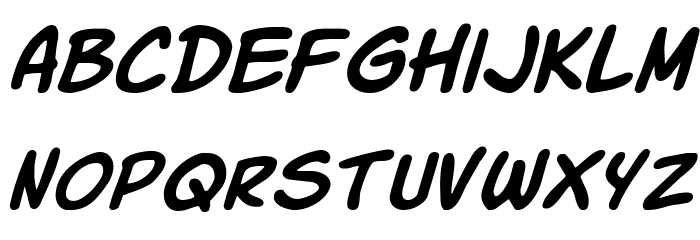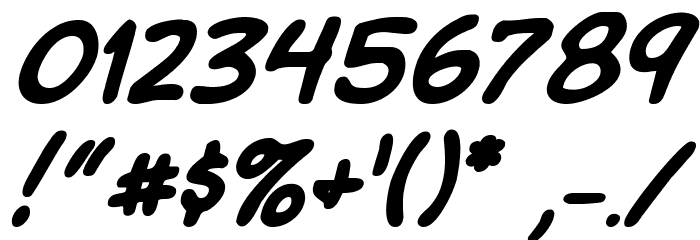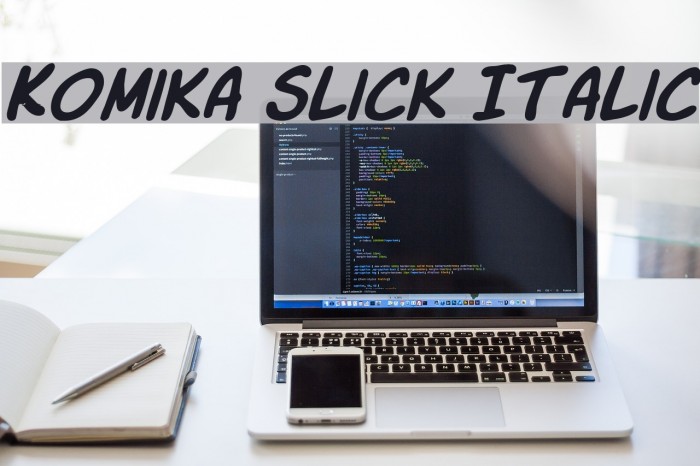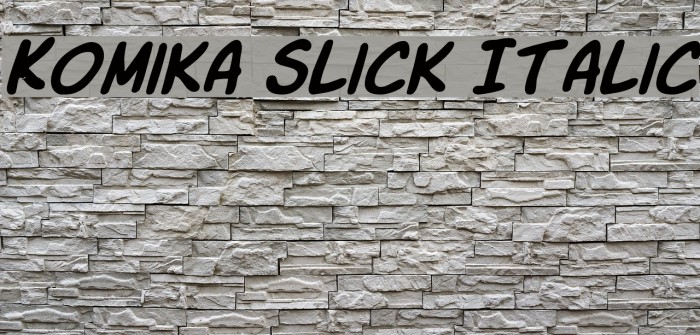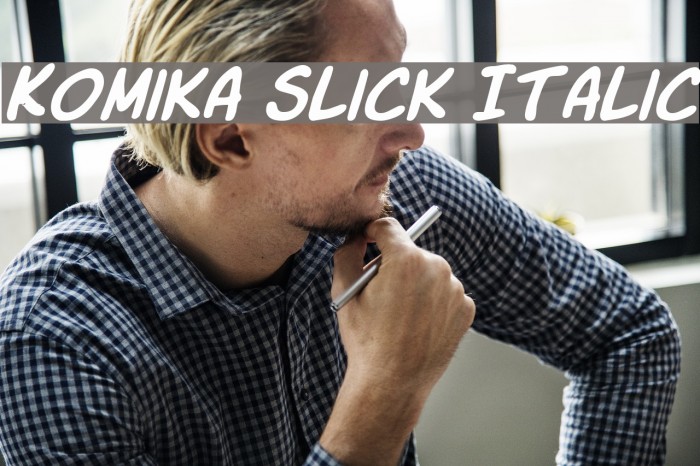
Komika Slick Italic Font
This font features a playful and dynamic style with a handwritten appearance. The letters are bold and slightly italicized, giving them a sense of movement and energy. The strokes are thick and rounded, contributing to a friendly and approachable look. The characters are well-spaced, ensuring readability while maintaining a cohesive flow. The numbers and special characters follow the same stylistic approach, making them consistent with the overall design. This font is ideal for projects that require a fun and informal touch, such as comic books, children's materials, or playful branding.
A bold, italicized handwritten font with a playful and dynamic style.
- Proposed Projects: Comic books, children's materials, playful branding, informal invitations, and posters.
- Overall Style: Playful
- Use Case: Headlines, Logos, Informal Text